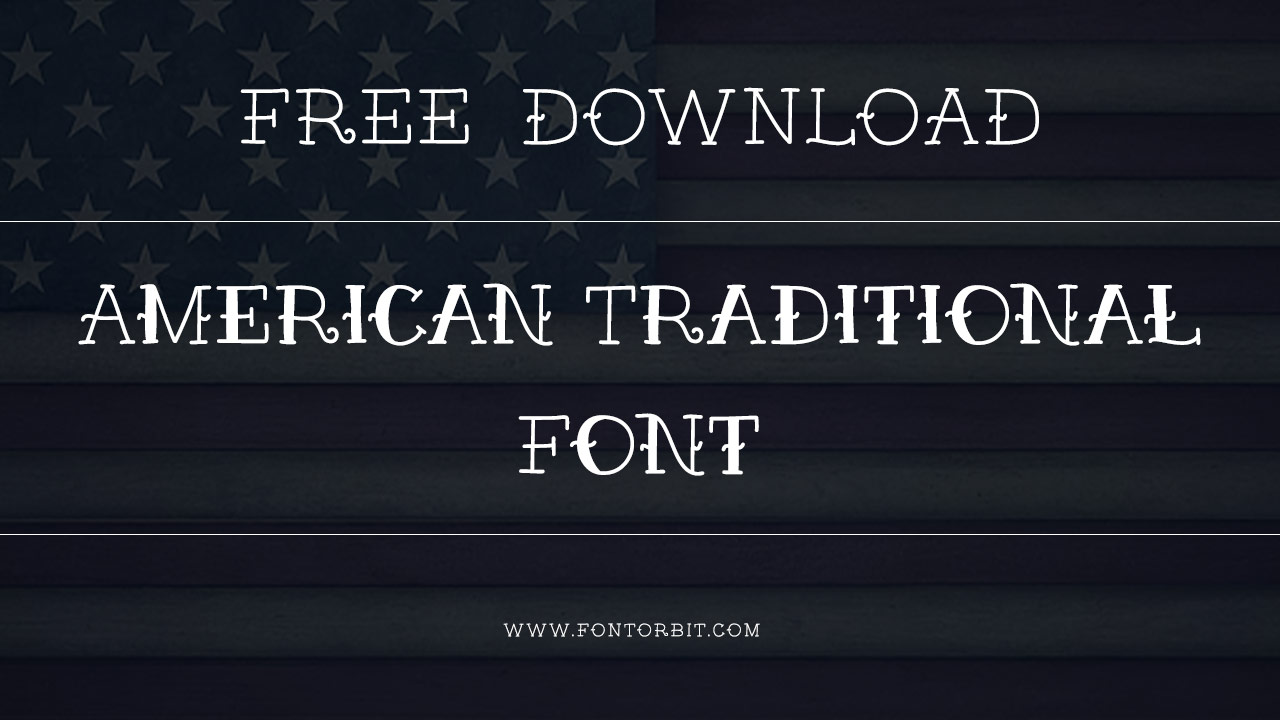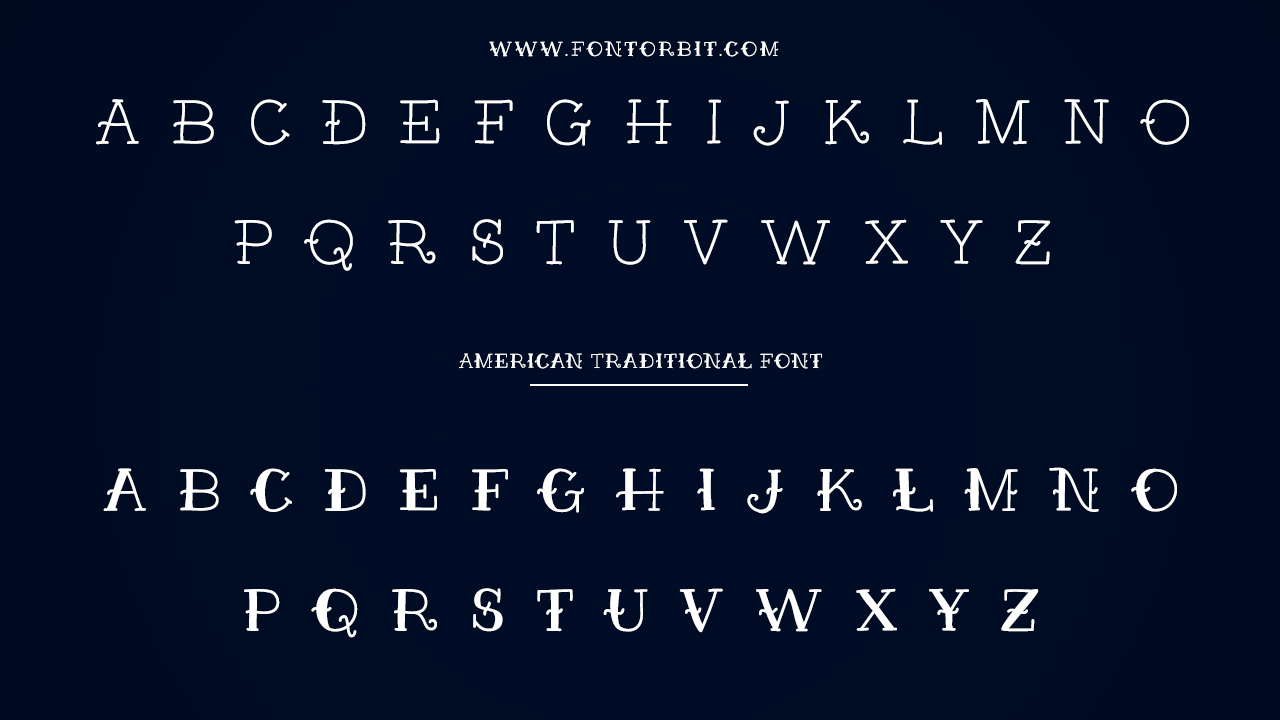
If you want to create a design that commands attention, the American Traditional Font is the way to go. This typeface, inspired by classic American culture, brings boldness and authenticity to any creative project. From to posters, greeting cards, and packaging, the American Traditional Font blends history and modern aesthetics, making it perfect for various design applications.
What Makes The American Traditional Font Stand Out?
The American Traditional Font is not just any bold typeface; it has roots in the iconic culture of the United States. It features thick, expressive strokes with high contrast, which mirror the strong, striking nature. Below are the standout features of this font that make it ideal for creating designs with impact:
- Bold Typeface: The thick, powerful strokes make it ideal for headlines and lettering.
- High Contrast: With clear outlines, this font makes a bold statement in any design.
- Authentic Feel: The font mimics the letterforms of traditional tattoos, giving your design an unmistakable vintage charm.
- Variety: Available in two weights, this font offers versatility for various design styles.
- Handcrafted: Each letter is meticulously crafted to evoke the feeling of handcrafted tattoo art.
Best Use Cases For The American Traditional Font
American Traditional Font is incredibly versatile and can elevate your creative work in various ways. Here are some of the best applications for this font:
- Tattoo Design: Its bold, high-contrast letters make it perfect for tattoo lettering.
- Posters: The strong presence of this font helps your poster stand out.
- Packaging: Ideal for product labels or packaging that needs a retro, vintage touch.
- Greeting Cards: Adds a unique, handmade feel to cards and invitations.
- Headlines: Great for creating bold headlines that grab attention.
American Traditional Font Family Names
- American Traditional Regular
- American Traditional Bold
These variations allow you to play with different weights, offering flexibility in how you use the font while keeping the bold, vintage appeal consistent throughout your design.
Why You Should Choose The American Traditional Font
- Bold typefaces,
- Expressive characters, and
- Vintage design influences
This font’s distinctive features make it perfect for those seeking to create something that stands out. Whether you’re designing tattoo lettering or graphic posters, this font ensures your work is seen. Its roots in the traditional tattoo culture of the United States make it a culturally rich choice for various design applications.
Comparison Of American Traditional Font With Other Fonts
Here’s a quick chart comparing the American Traditional Font with some similar fonts, showing the differences in style and use cases.
Where To Use American Traditional Font
This tattoo-inspired font is perfect for various creative projects, from commercial to personal work. Here are some common design areas where it can be used:
- Graphic Design: Great for creating impactful visuals in digital and print formats.
- Labels & Packaging: Adds an authentic, vintage touch to product designs and packaging.
- Posters & Flyers: Make a statement with bold, tattoo-inspired lettering for events or advertising.
- Illustration: The font works wonderfully as part of illustrations or as standalone typography in design work.
2.How Does The American Traditional Font Compare To Other Tattoo Fonts?
It has a more authentic, handcrafted feel with high-contrast strokes, making it stand out as a classic tattoo-inspired design font.
3.Is This Font Suitable For Logos And Branding?
Absolutely! Its bold and striking appearance makes it perfect for logos that need to stand out.
4.Can I Pair The American Traditional Font With Other Fonts?
It pairs well with clean sans-serif fonts like Gill Sans or script fonts for added contrast and visual interest.
6.What Type Of Projects Is The American Traditional Font Best Suited For?
It’s perfect for tattoo designs, posters, product packaging, headlines, and any project that requires a bold, vintage feel.